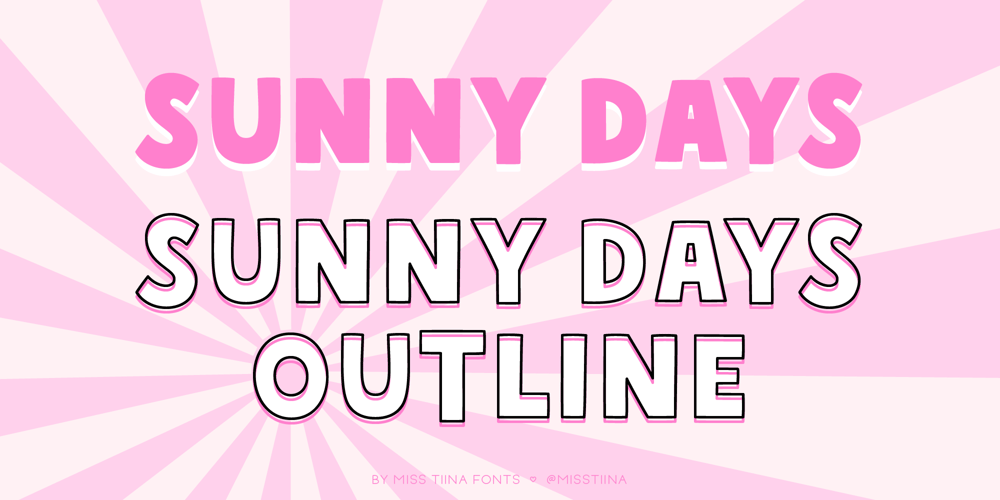
MTF Sunny Days Font Family was designed by Tina Raparanta and published by Miss Tiina Fonts. MTF Sunny Days contains 2 styles and family package options. Sunny Days is a fun, cartoon-like display font capable of taking any product out of the ordinary! Use it on bold and bright creations such as banners, posters, covers, titles, magazines, etc.